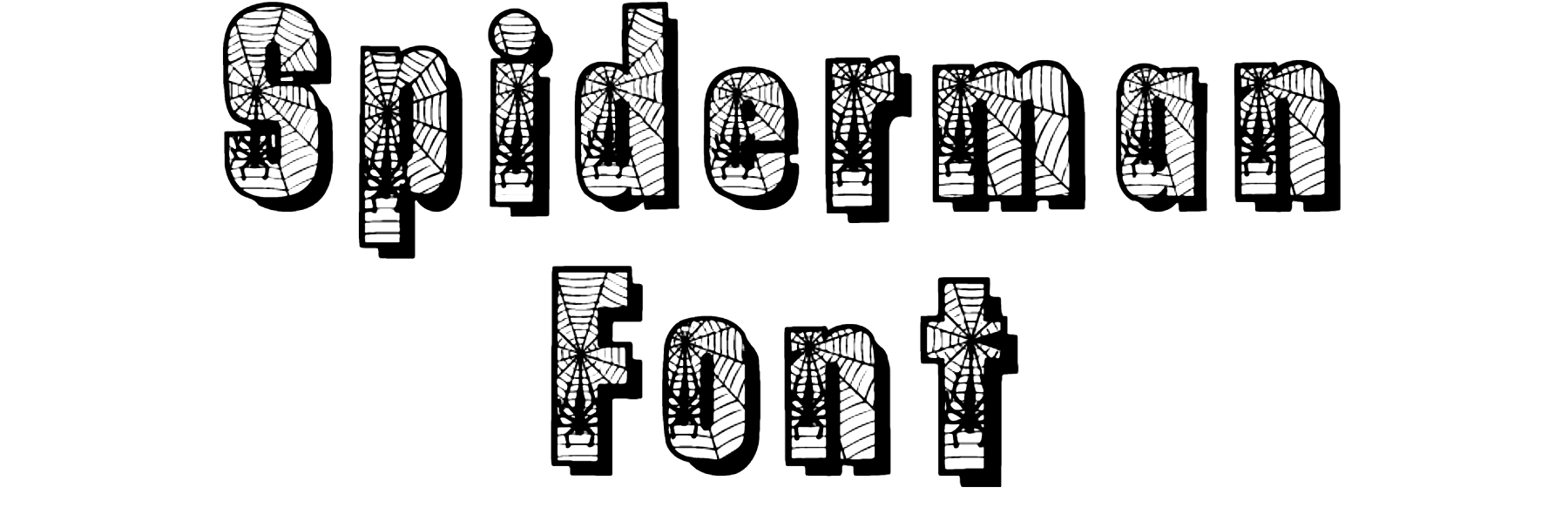
SpiderMan Font
SpiderMan is a fancy font. It's a decorative display font with plenty of personality, made to grab attention. It's a free download, and you can try it with your own text in the preview above first.
What You Can Type With SpiderMan
With complete upper and lowercase letters and all ten digits, SpiderMan is ready for real wording, not just a single headline. Common punctuation such as &, ! and ? is included as well. It doesn't include accented letters such as é or ñ, which makes it an English-only font.
Where SpiderMan Works Best
Think of SpiderMan for posters, logos and eye-catching headlines. Use it for one standout word or headline and let simpler fonts handle the rest.
Does SpiderMan support accented letters?
No. SpiderMan has no accented letters such as é, ñ or ü, so it's best for English text.